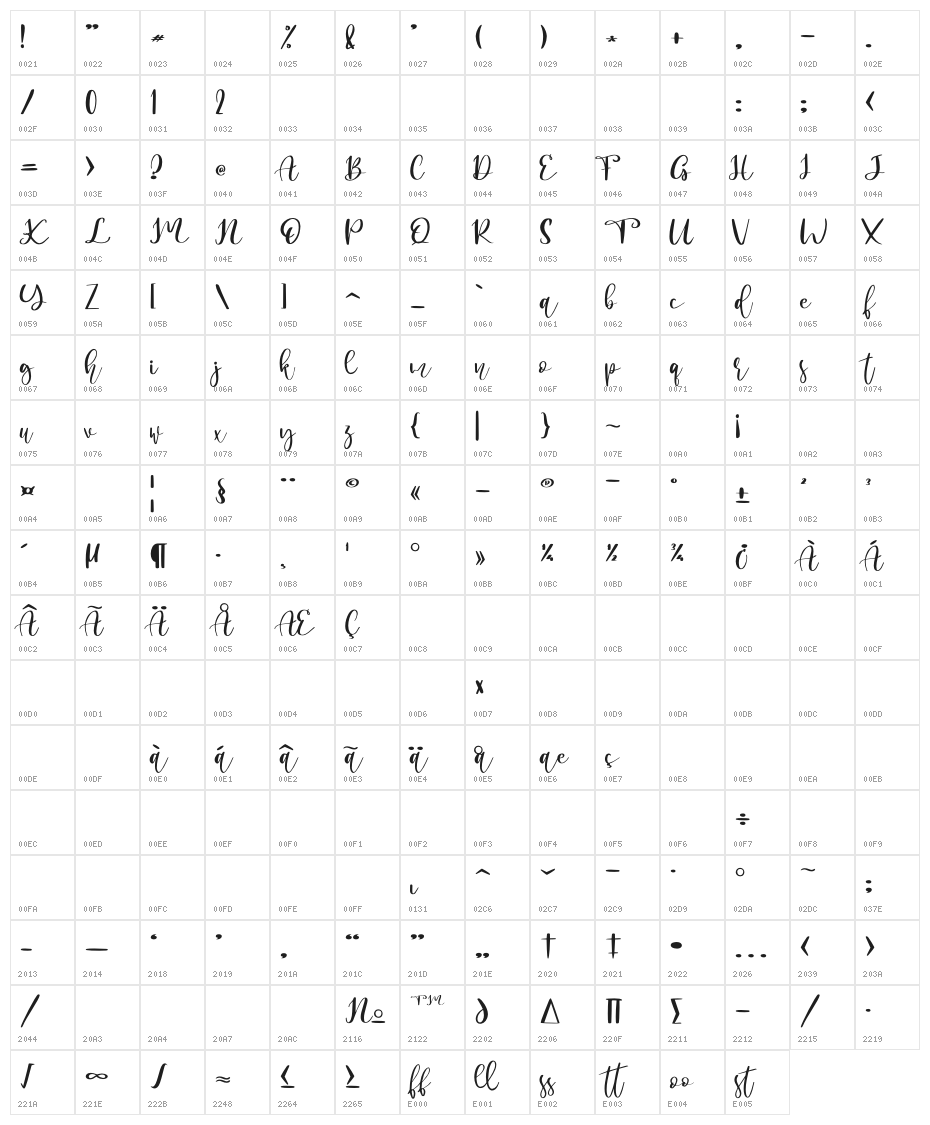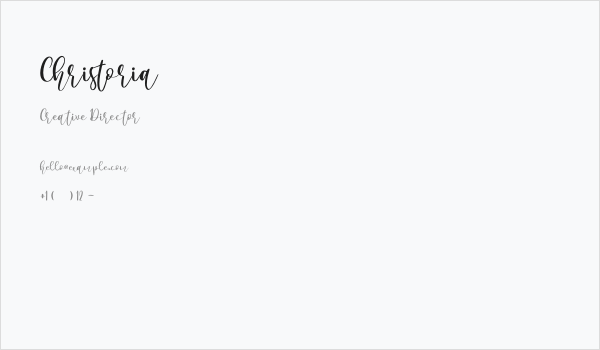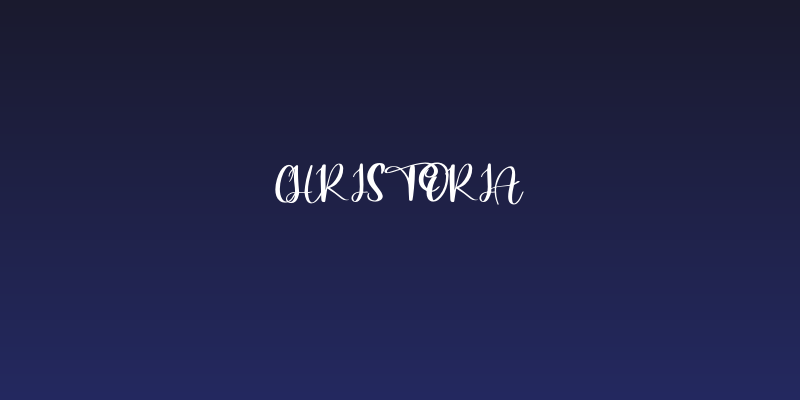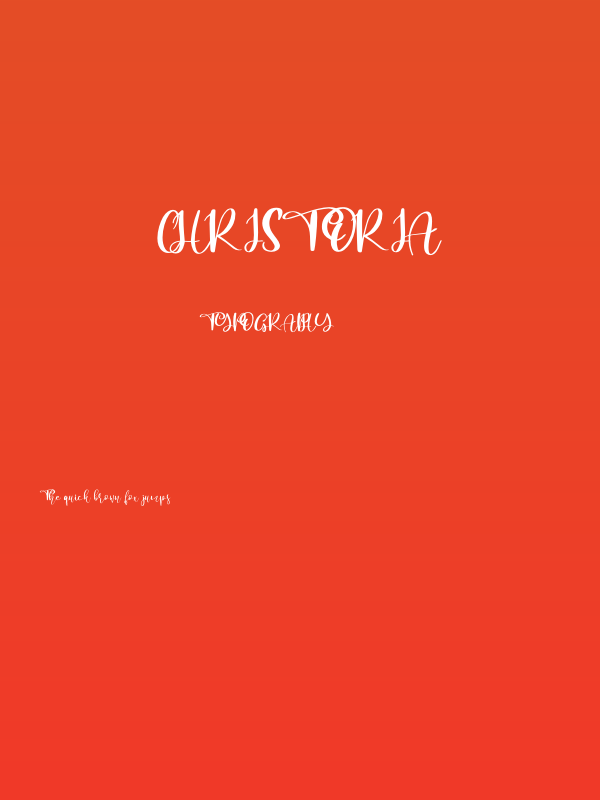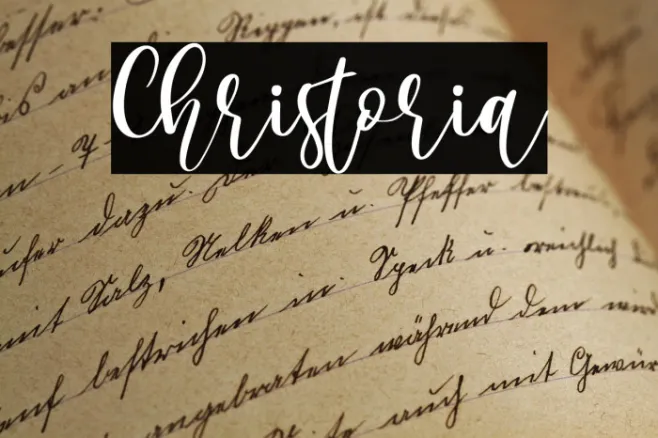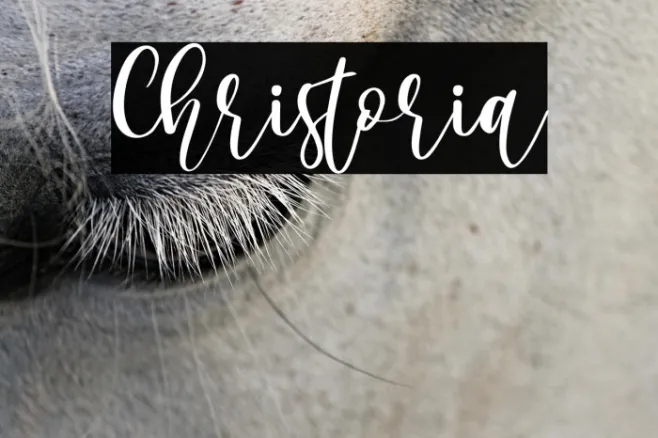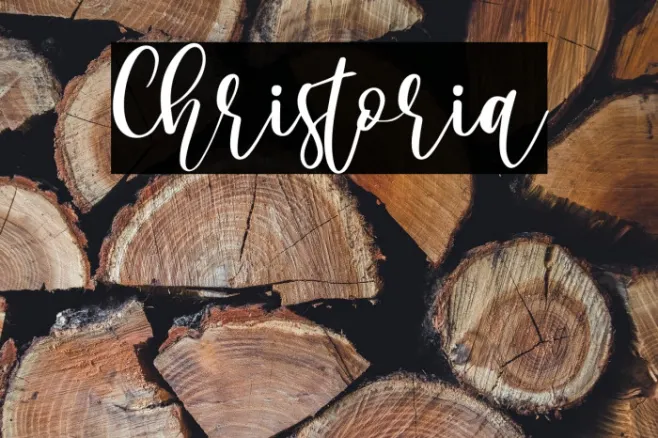
Christoria Font
Christoria Description
This elegant script font features a flowing, cursive style with intricate loops and swashes that give it a sophisticated and artistic appearance. The uppercase letters are bold and dramatic, while the lowercase letters maintain a graceful continuity with smooth transitions. The numerals are consistent with the overall style, adding a touch of flair to each character. Special characters are designed with the same attention to detail, ensuring a cohesive look across all elements. The font's high contrast in stroke thickness adds to its visual appeal, making it suitable for decorative purposes.